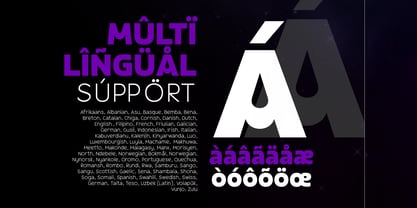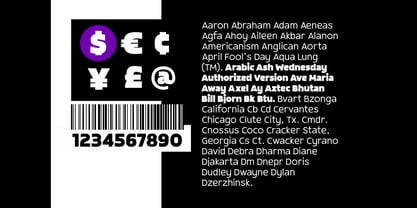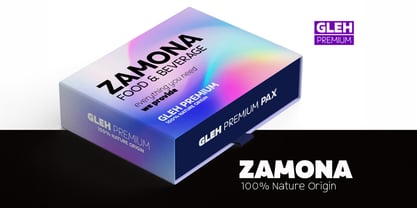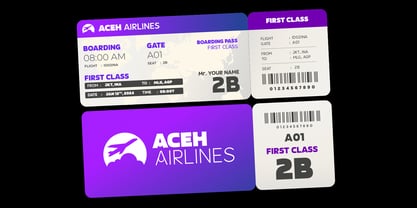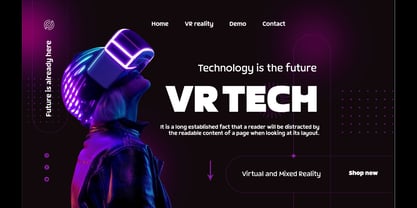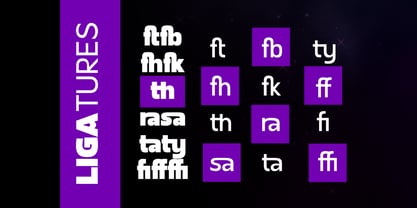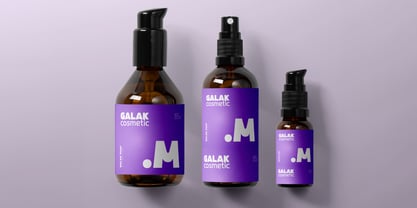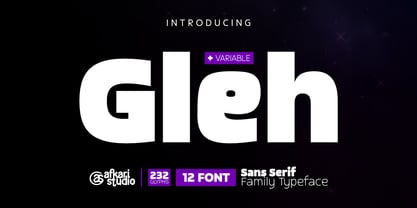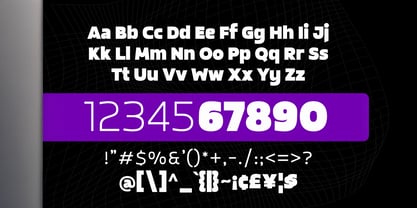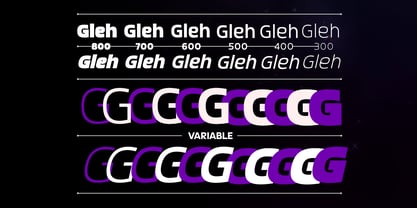
Gleh
by Afkari Studio
The Gleh Font Family was designed by Musthafa Kamal Emje and published by Afkari Studio. Gleh contains 12 styles and family package options. More about this family
Gleh is a modern sans serif family typeface designed to deliver clean, versatile, and professional typography for a wide range of creative and corporate design needs. Built with balanced proportions and contemporary letterforms, Gleh offers excellent readability while maintaining a stylish modern appearance across all applications. This typeface family includes 12 fonts, covering weights from Light to Black, along with slanted styles that allow designers to create dynamic and expressive layouts. In addition, a variable font version is included, enabling smooth weight and slant adjustments for maximum flexibility and efficient workflow in modern design environments. Whether used for branding, editorial layouts, websites, or marketing materials, Gleh adapts effortlessly to both digital and print projects. It is designed for creatives who need a dependable and modern type system that performs consistently across various design scenarios. Highlighted Features: - Uppercase, lowercase, Numbers & punctuation - Clean and contemporary letterforms - Excellent readability across sizes – Fully accessible without additional design software. – Mültîlíñgúãl Sùppört for; ä ö ü Ä Ö Ü ß ¿ ¡ Build consistent, modern typography with Gleh – Sans Serif Family Typeface, a flexible font family created for contemporary design systems and professional visual communication.
Designers: Musthafa Kamal Emje
Foundry: Afkari Studio